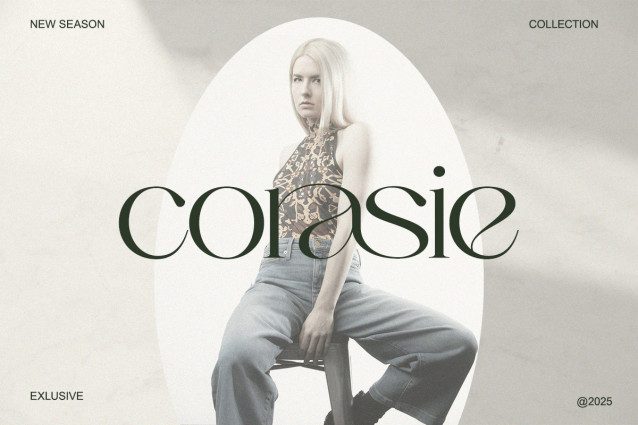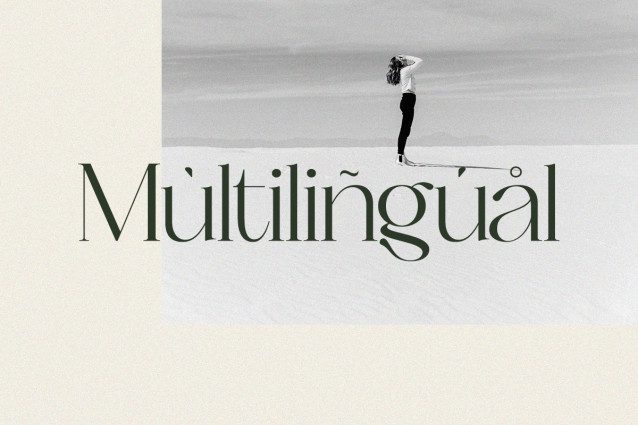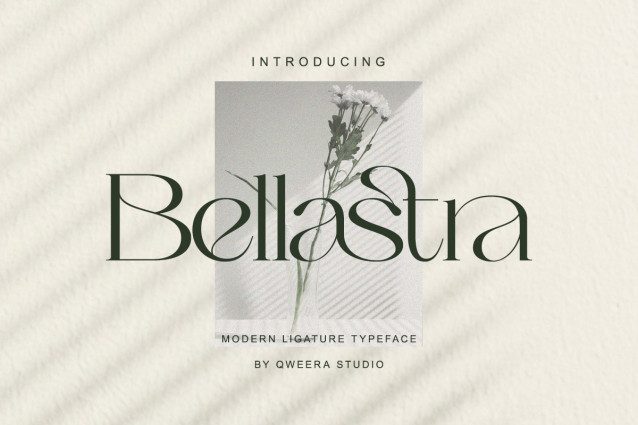
Bellastra Font
Bellastra Font a serif typeface made for elegance lovers. It brings a perfect balance of modern beauty and classic sophistication, ideal for logos, wedding invites, fashion branding, or editorial headlines. Every letter is crafted with harmony and proportion, creating a confident yet soft presence on every design.